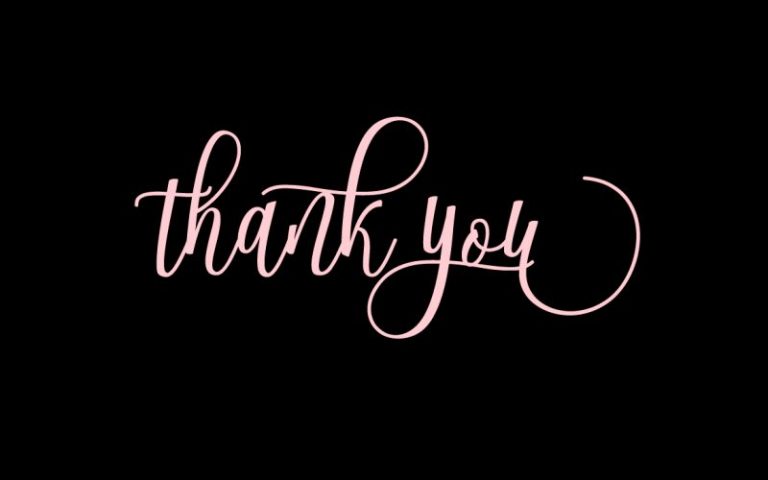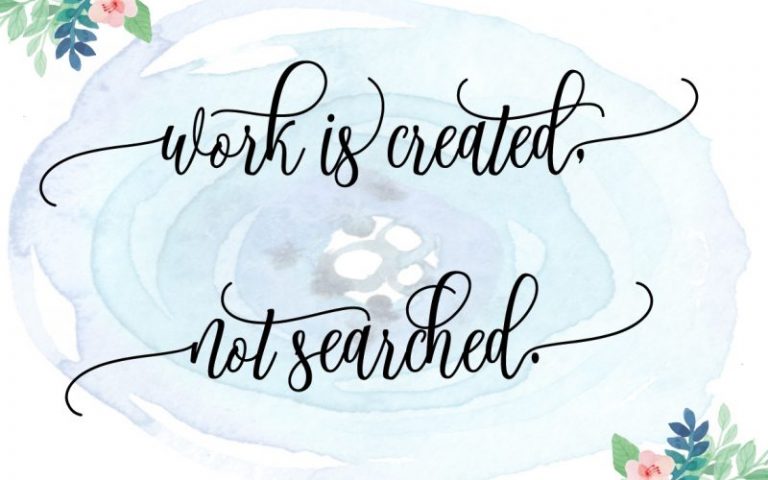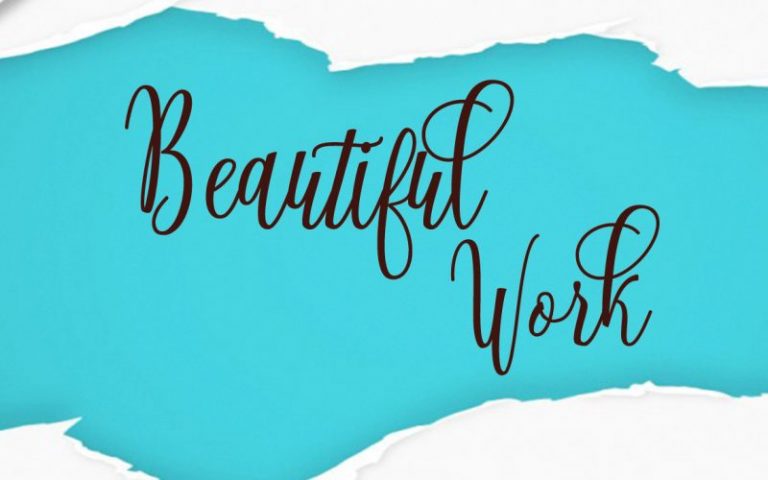
Connekia Calligraphy Font
Hello Everybody Font Lovers!  A modern calligraphy typeface. Introducing Connekia Font! Connekia designed and shared by TypeDesign. Connekia is the font style handmade dancing and then live trace to have unique forms of calligraphy, the writing style is very natural.